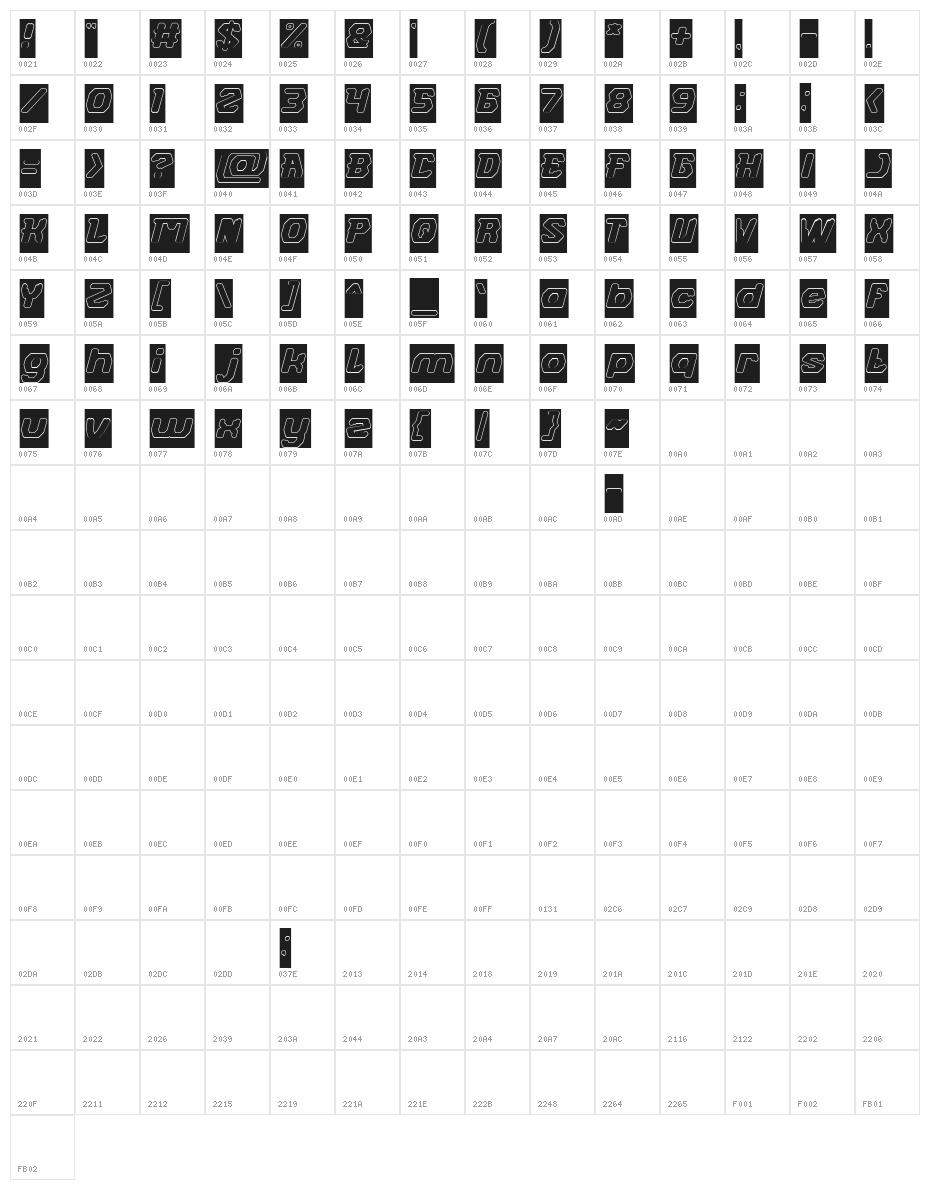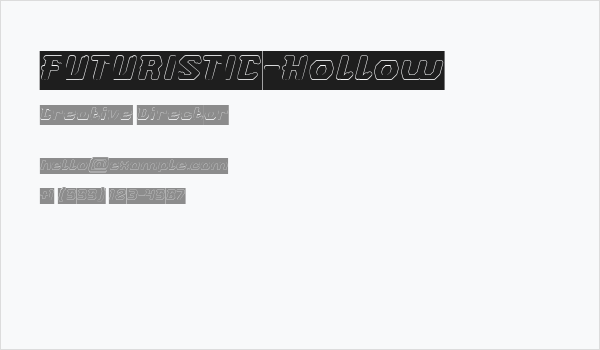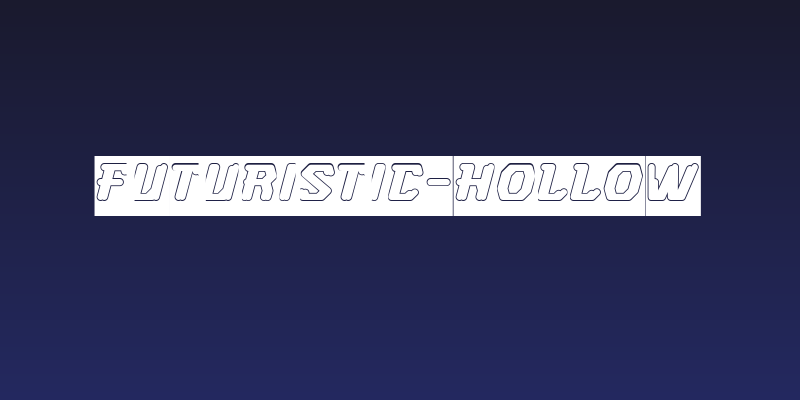
FUTURISTIC-Hollow Font
FUTURISTIC-Hollow Description
This font features a futuristic, hollow design with a bold and geometric structure. The characters are outlined, creating a hollow effect that gives a sense of depth and modernity. The uppercase and lowercase letters maintain a consistent style, with angular and sharp edges that convey a sense of technology and innovation. The numerals and special characters follow the same design principles, ensuring uniformity across the font. This style is ideal for projects that require a modern and cutting-edge look, such as technology branding, sci-fi themes, and digital interfaces.
| Proposed Projects | Ideal for technology branding, sci-fi themes, digital interfaces, and modern posters. |